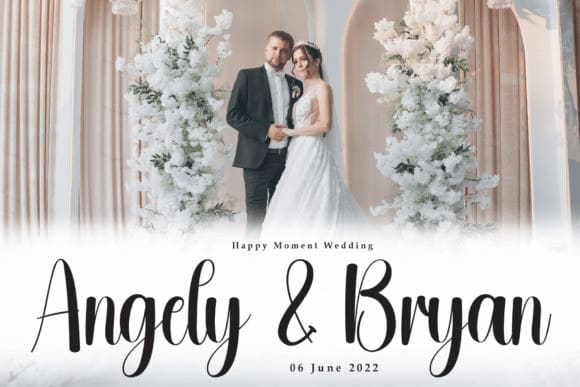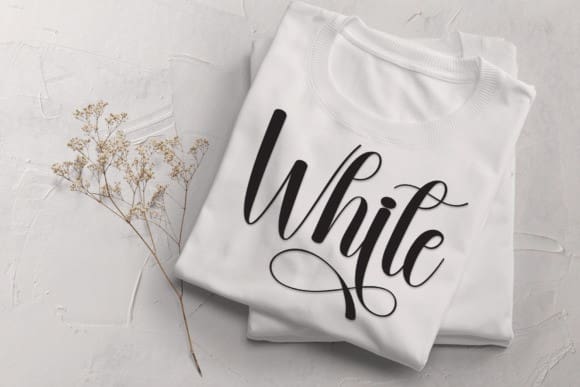
Plunge Script Font
Plunge Script Font is a sweet and friendly handwritten display font. Cute and fun, this font is ideal for writing wedding invitations, cards, or any other design that might need a fun touch!